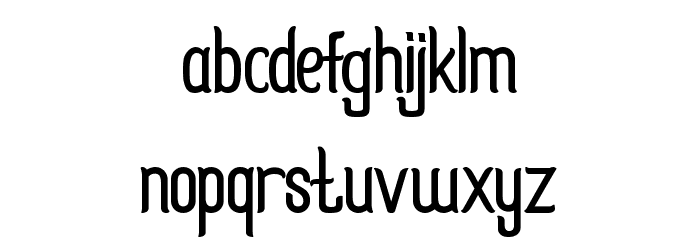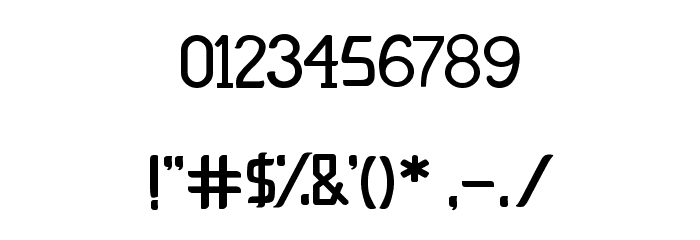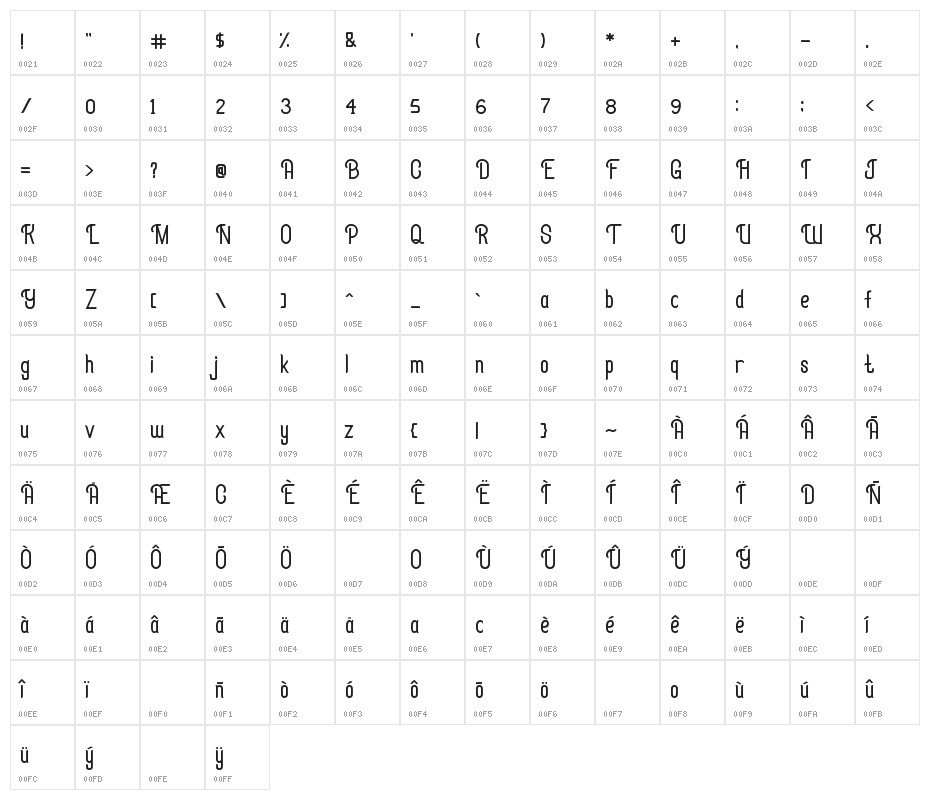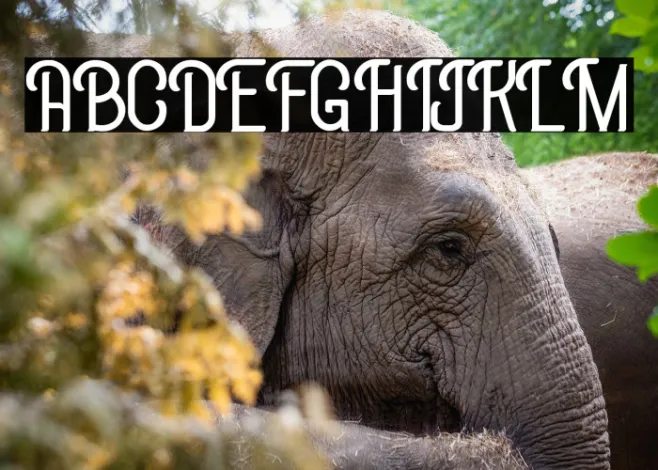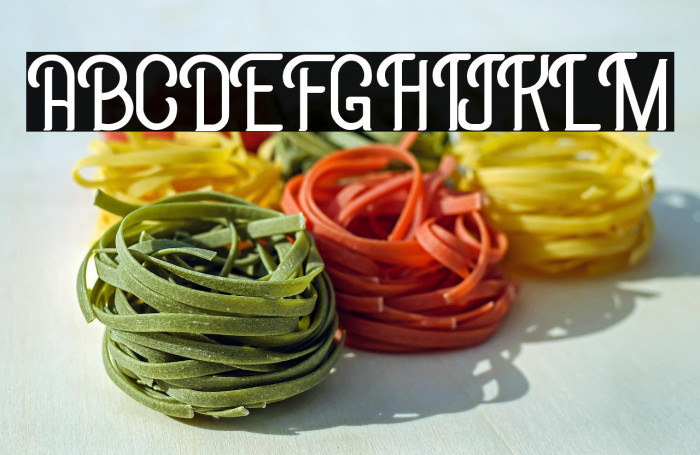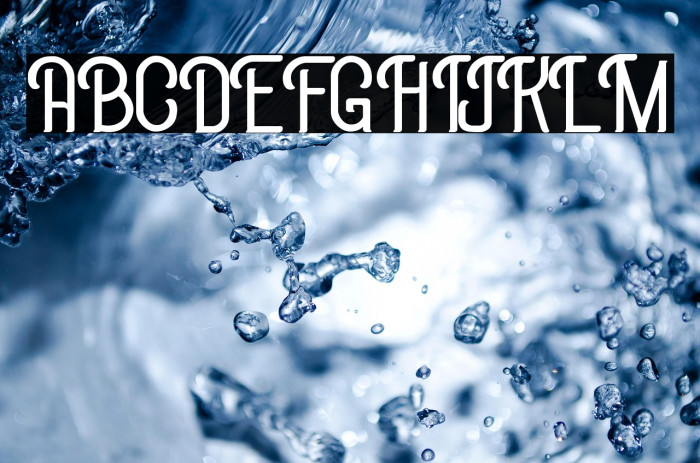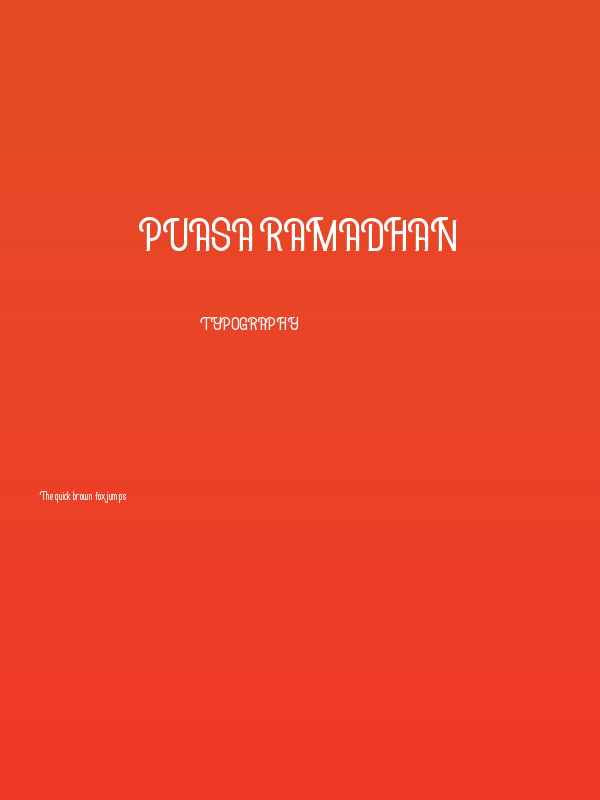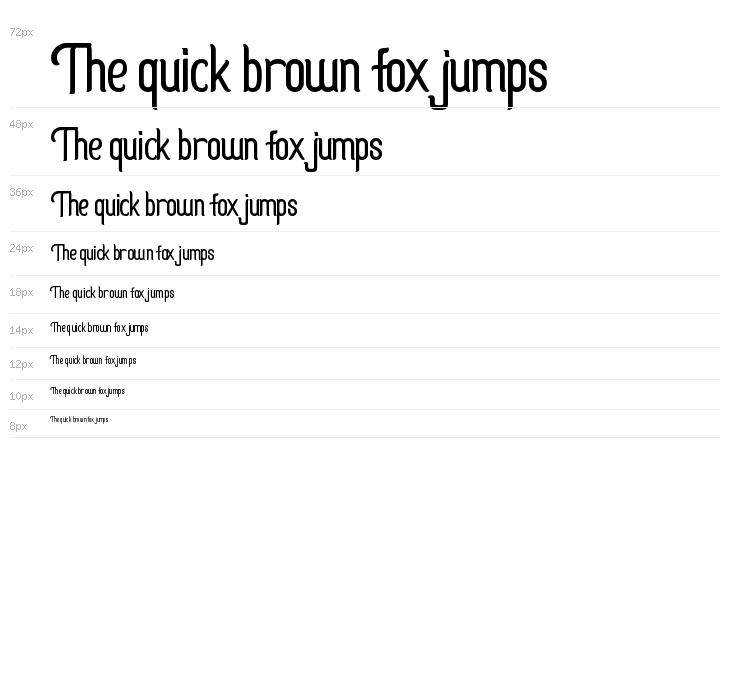
Puasa Ramadhan Font
This font features a unique and playful design with a decorative flair, characterized by its curved and slightly whimsical letterforms. The uppercase letters have a distinct style with elongated verticals and subtle serifs, while the lowercase letters maintain a consistent flow with rounded edges. The numbers and special characters complement the overall aesthetic, providing a cohesive look. This font's style is both modern and vintage, making it versatile for various design applications.
A decorative font with playful, curved letterforms and subtle serifs.
- Font: Puasa Ramadhan
- Proposed Projects: Ideal for branding, posters, invitations, and any project requiring a playful yet sophisticated touch.